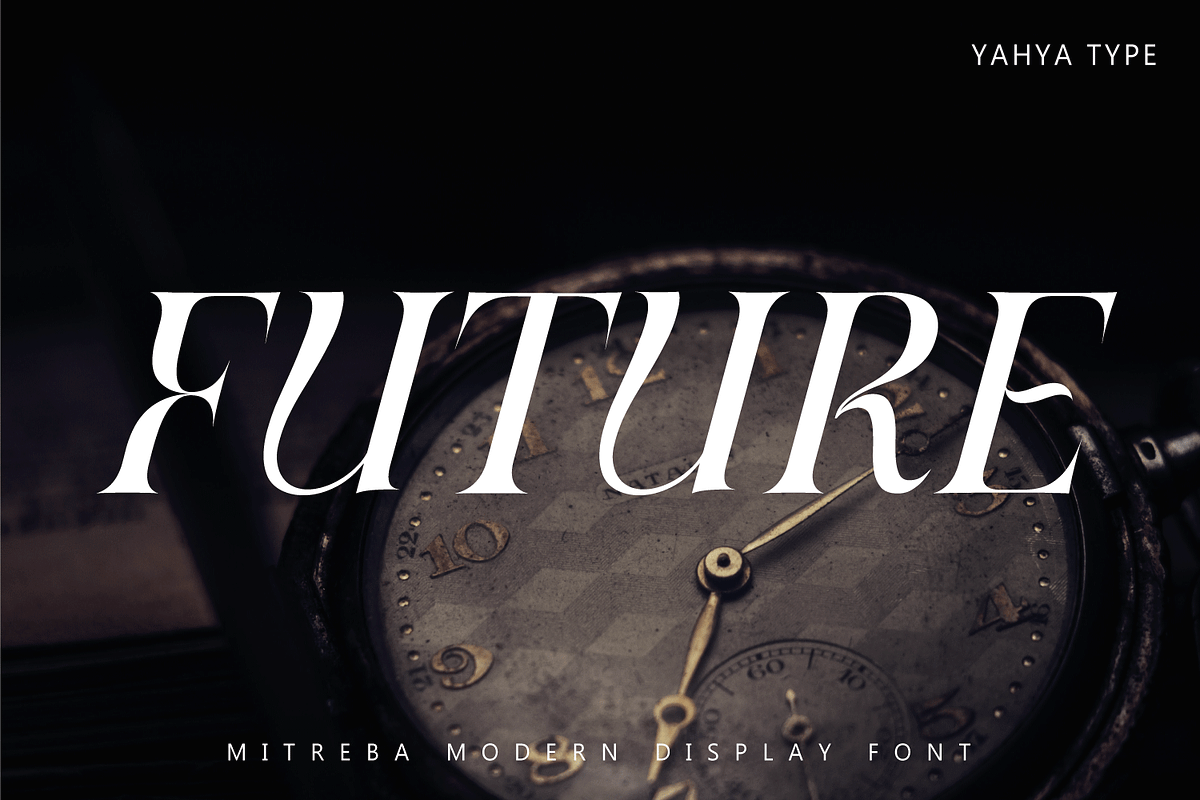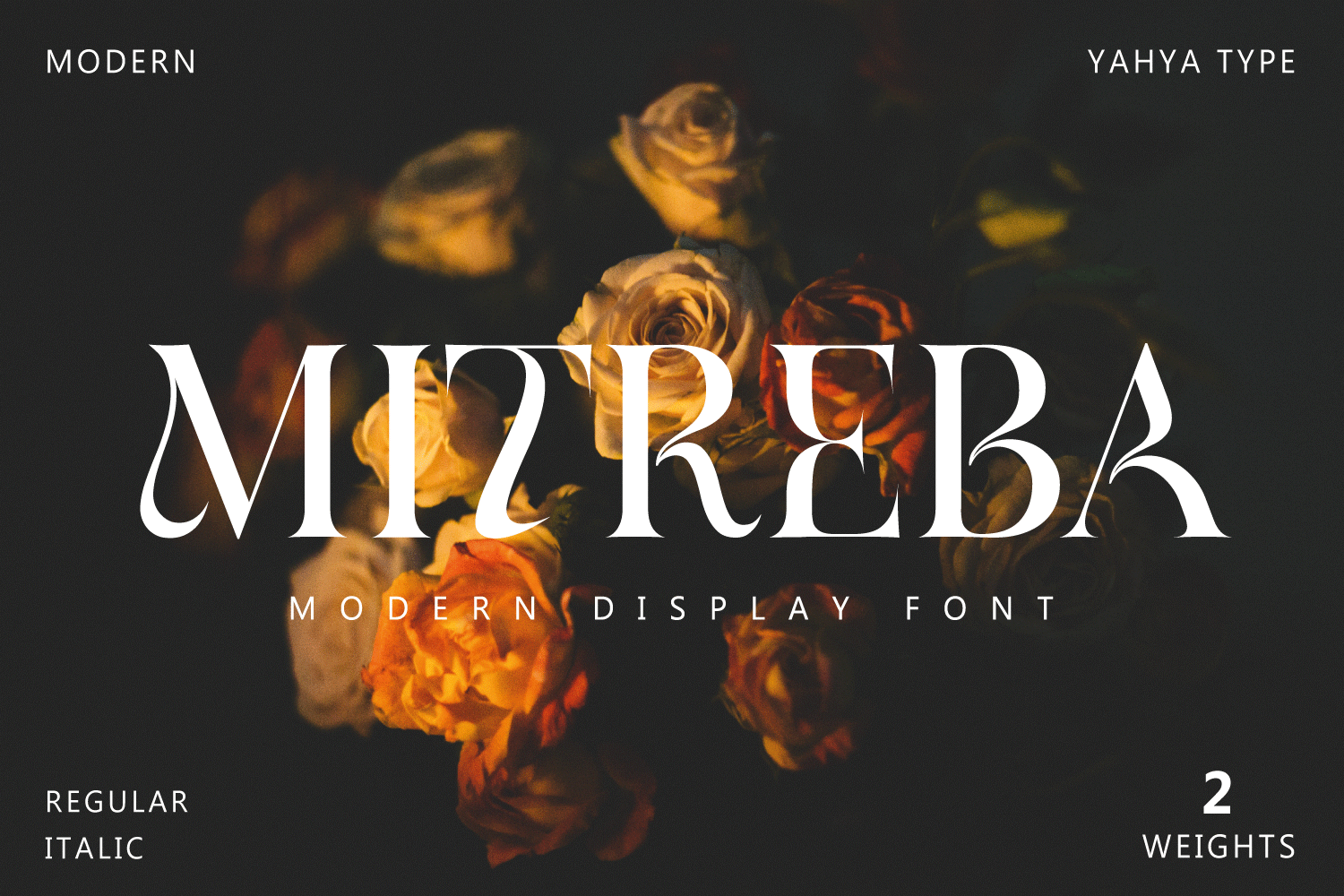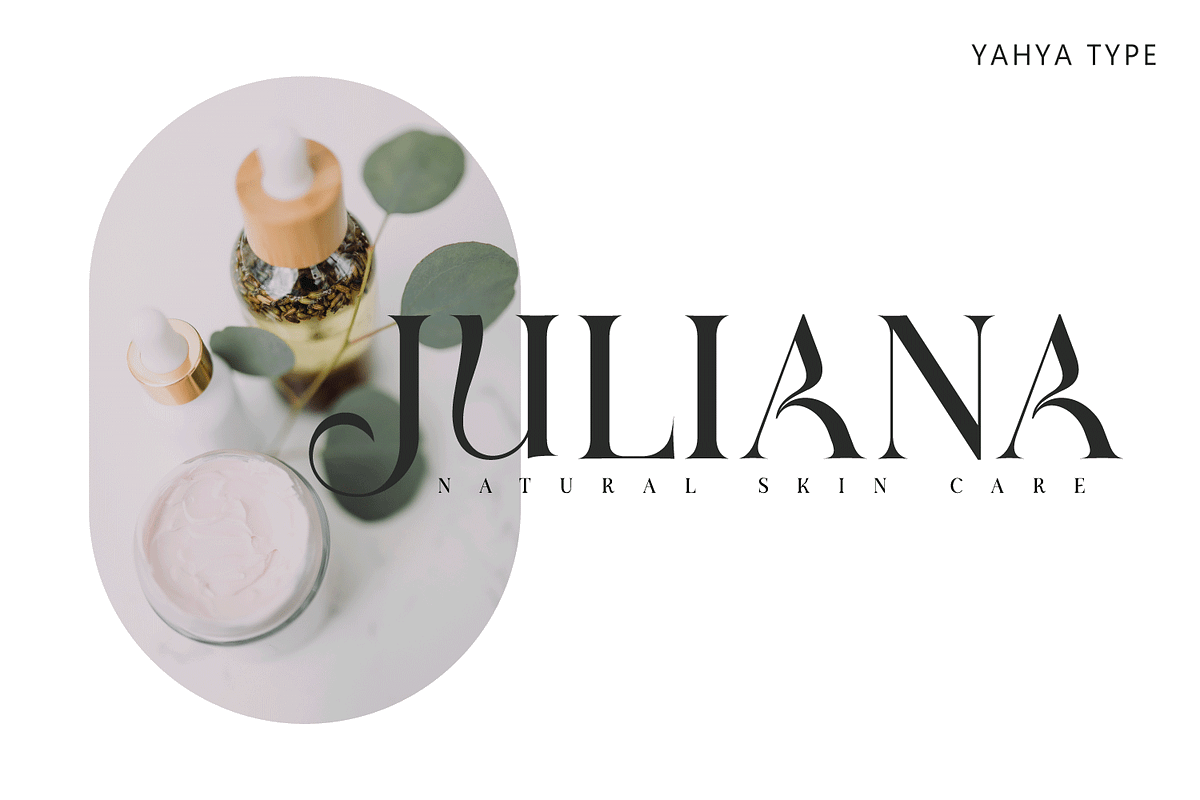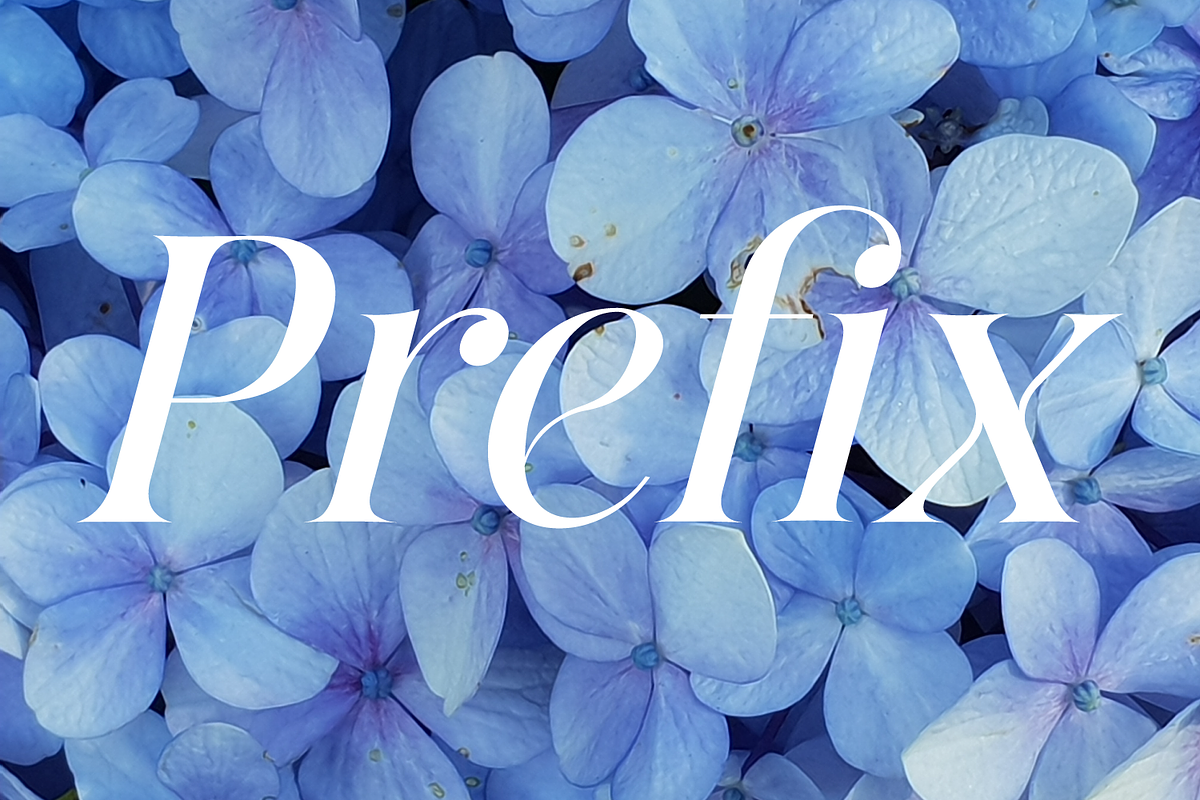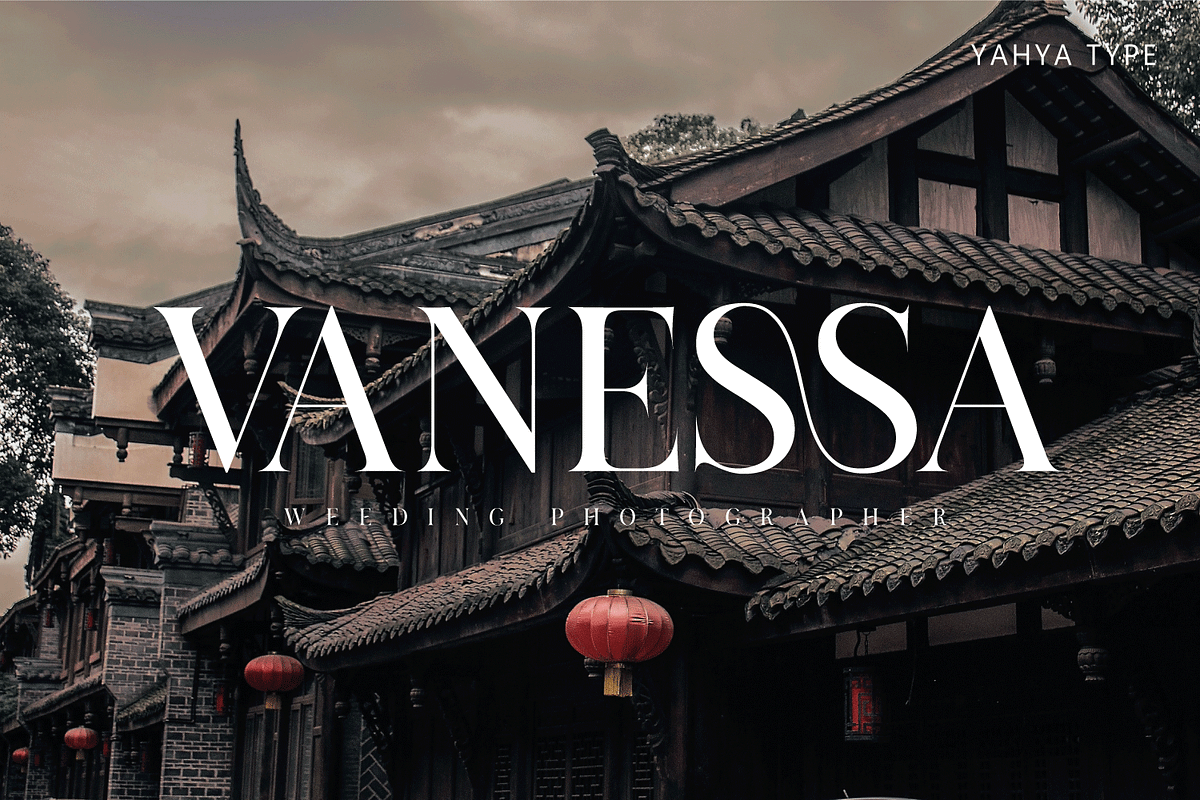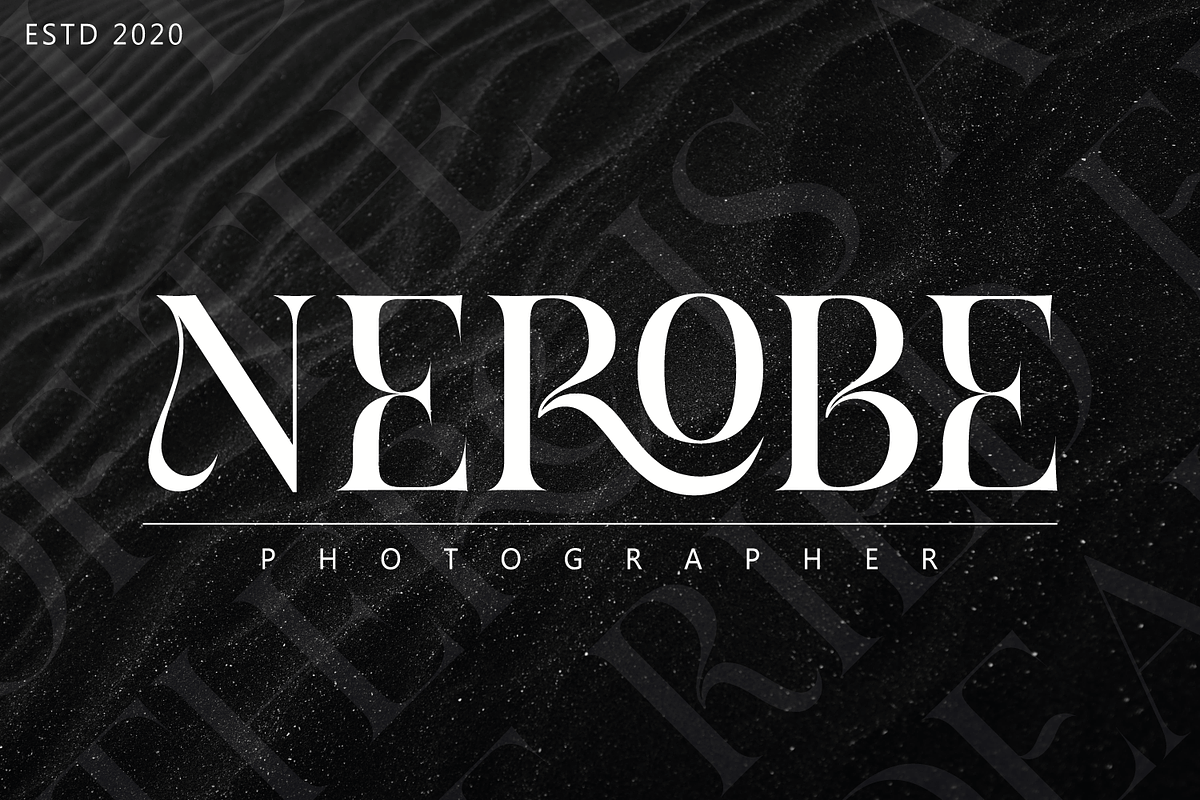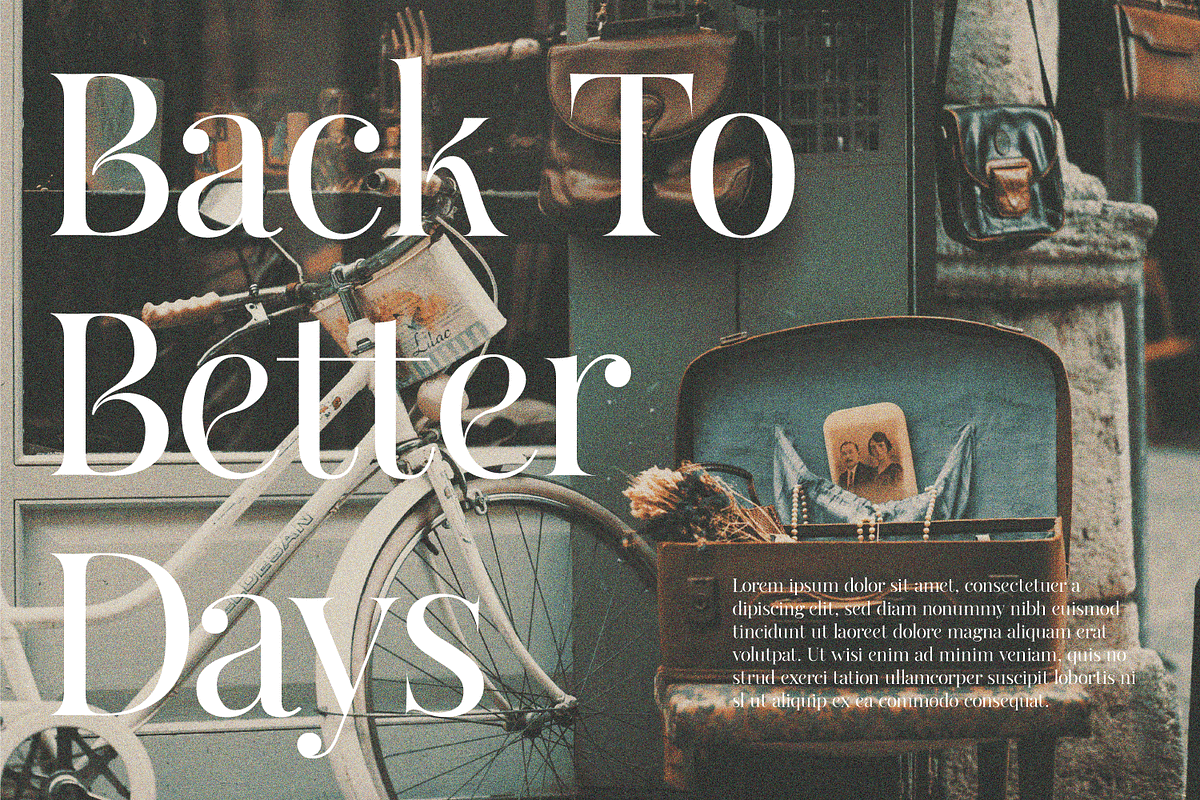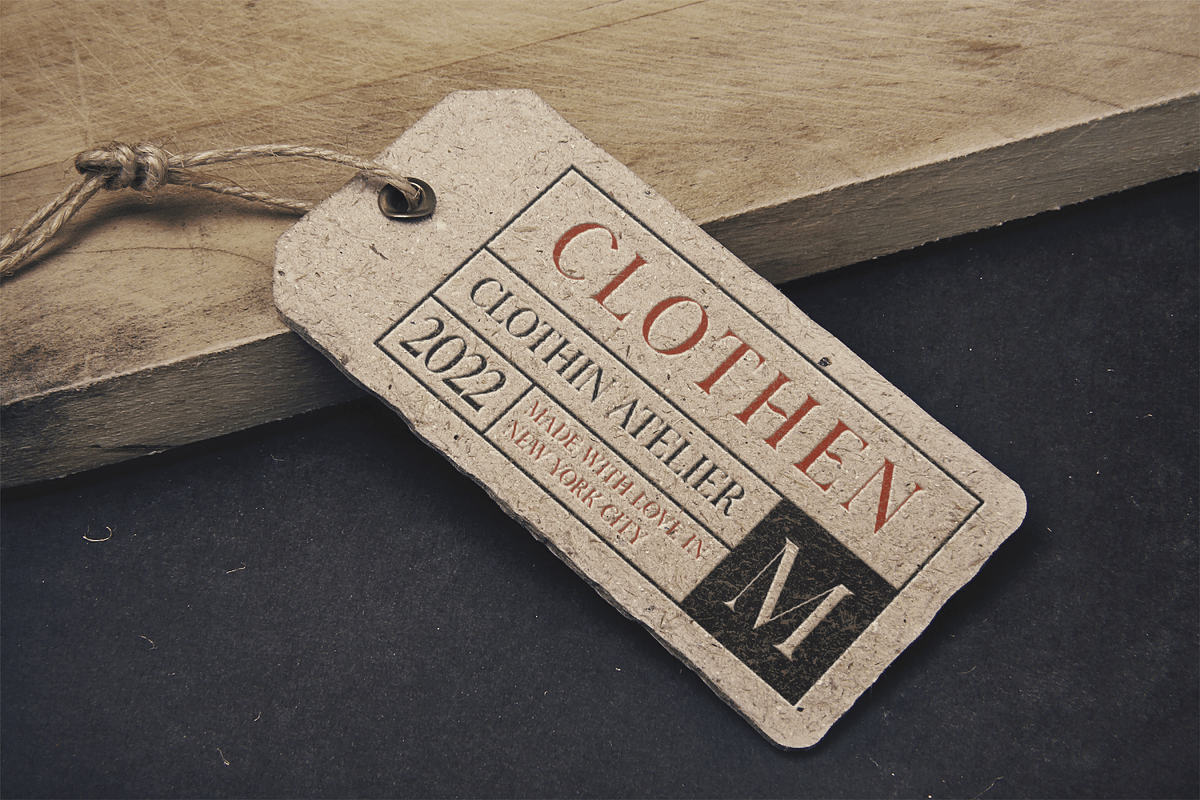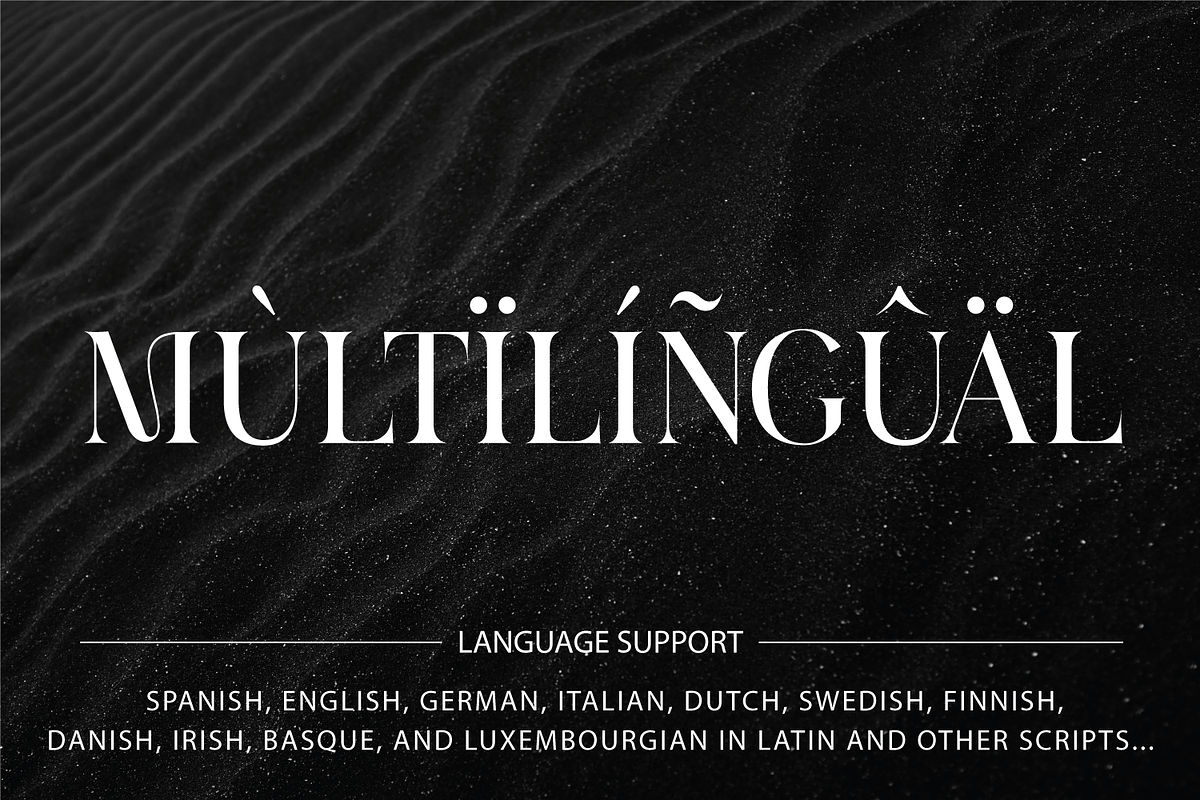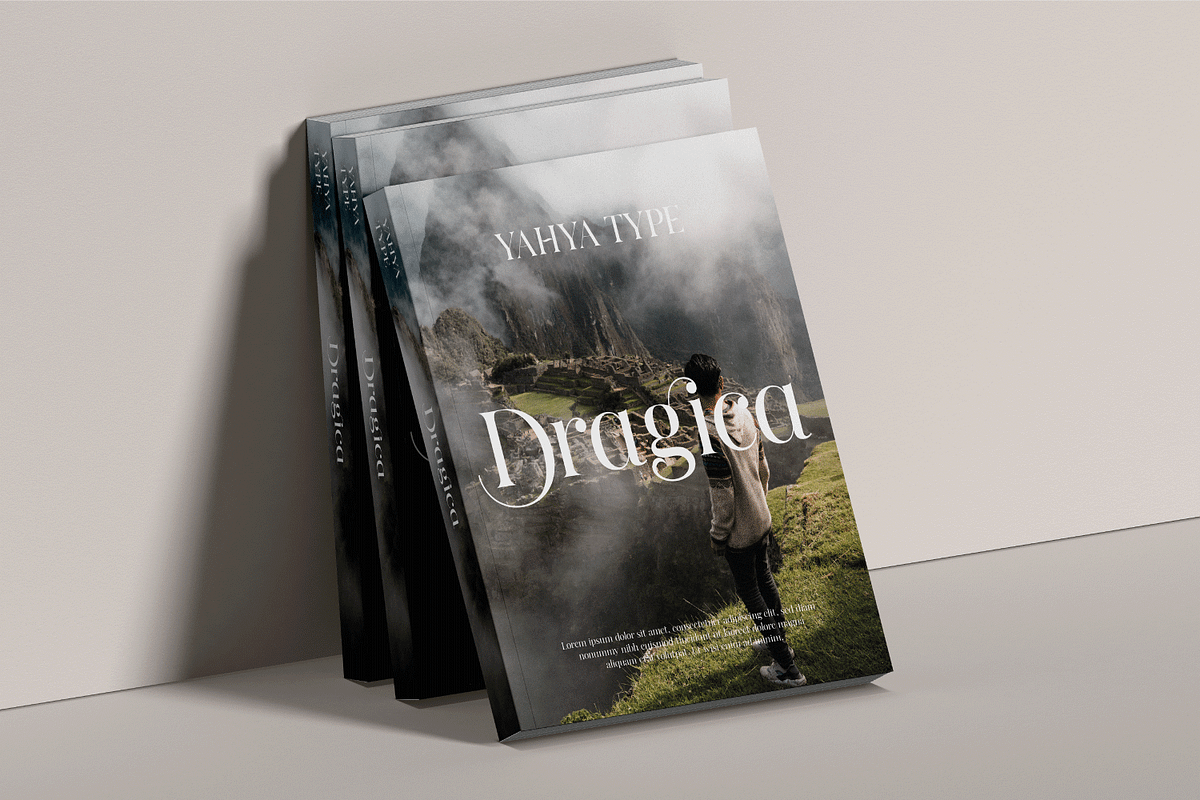
Mitreba - Modern Font
Mitreba– is an elegant classic serif font with Fancy Curves, More Alternative Characters, and Multilingual Support.
Mitreba– this style works well for branding projects, logo, wedding designs, social media posts, advertisements, product packaging, product designs, label, photography, watermark, invitation, or whatever project you’re working on.
- Numbers, punctuation
- Ligature & Huge Stylistic alternate
- Multilingual support.